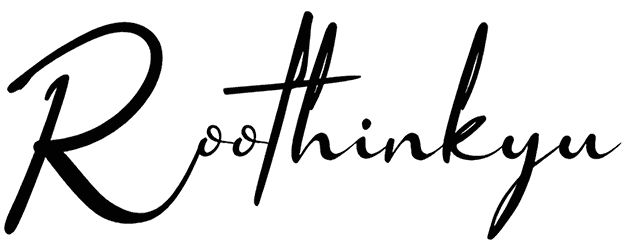
Roothinkyu Font
If you still stick to the calligraphy fonts and want to add modernity to the project based on your clients’ taste, choosing Roothinkyu is the smartest thing to do.
This script font is designed to be connected and can establish a strong connection with your viewers. Therefore, if human communication is important in your work and you do not use repetition, this handwritten font can reflect your human identity in your projects, even without numbers.